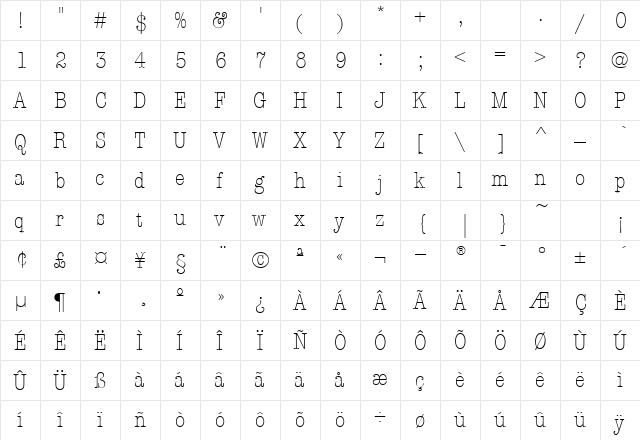
American Typewriter Condensed Light Font Preview
Design Context for American Typewriter Typeface
American Typewriter brings the precise, column-aligned rhythm of monospaced typography to designs that value technical clarity and systematic order. The delicate stroke weight brings airiness and refinement to layouts.
Pro Tip: Use American Typewriter with slightly increased line-height for extended reading — fixed-width spacing can feel dense in longer passages without extra breathing room.